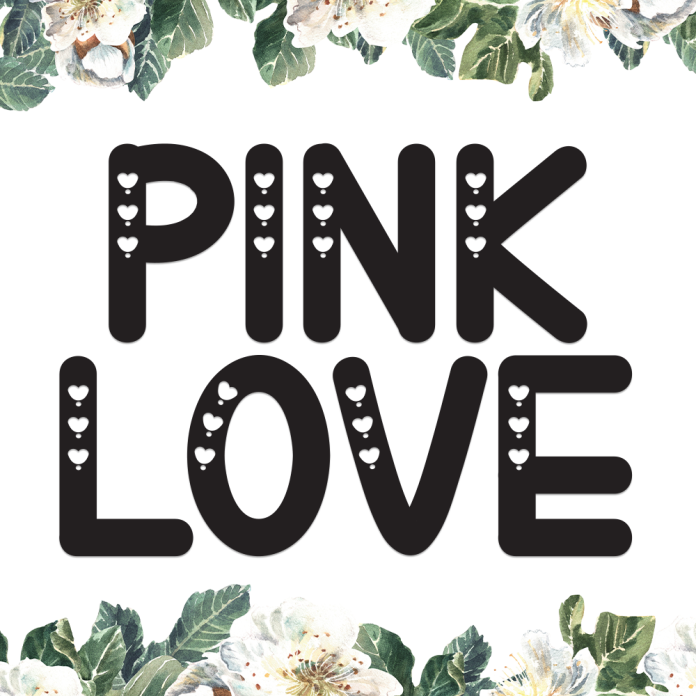
Pink Love is a fun, bold, and charming display font that radiates sweetness and cheer. With its bubbly letterforms and adorable aesthetic, this font is designed to bring a touch of cuteness and happiness to any creative project.
Whether you're designing for kids, crafting greeting cards, or creating cheerful product packaging, Pink Love adds the perfect amount of joy and charm.
Bold and rounded display style
Whimsical, friendly letterforms
Great for kids’ designs, birthday themes, and Valentine projects
Let your designs shine with the sweet and playful vibe of Pink Love!